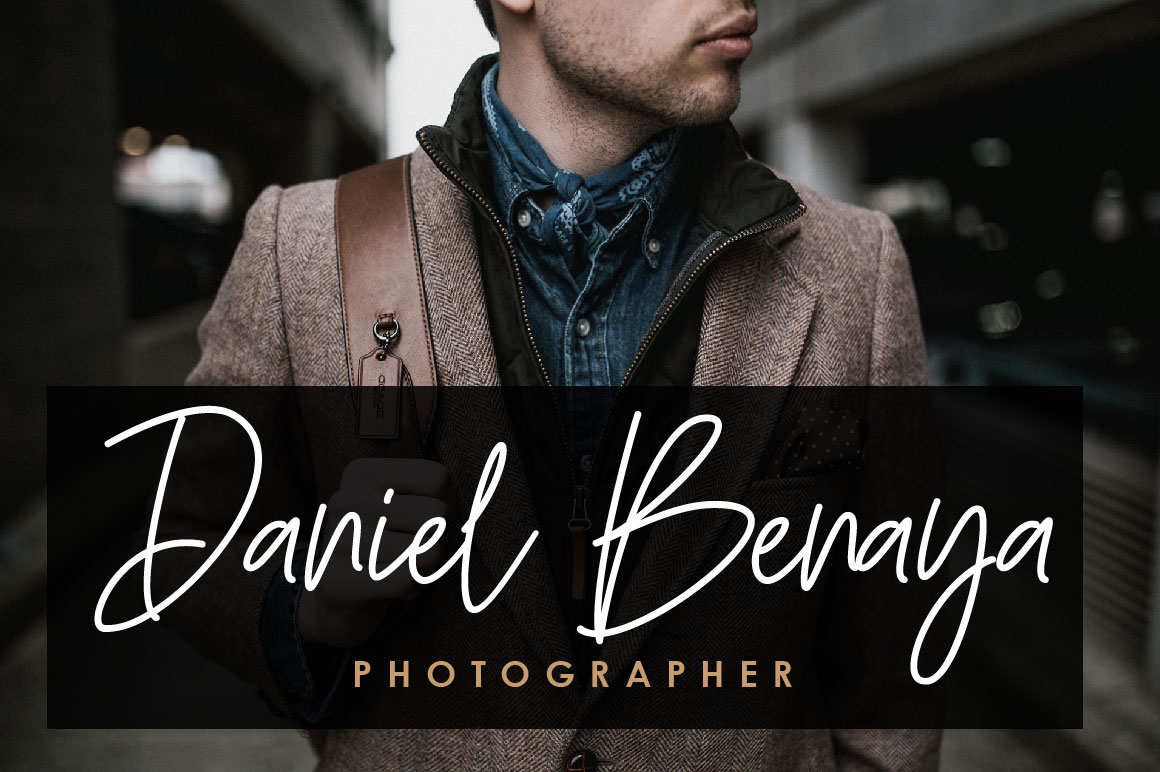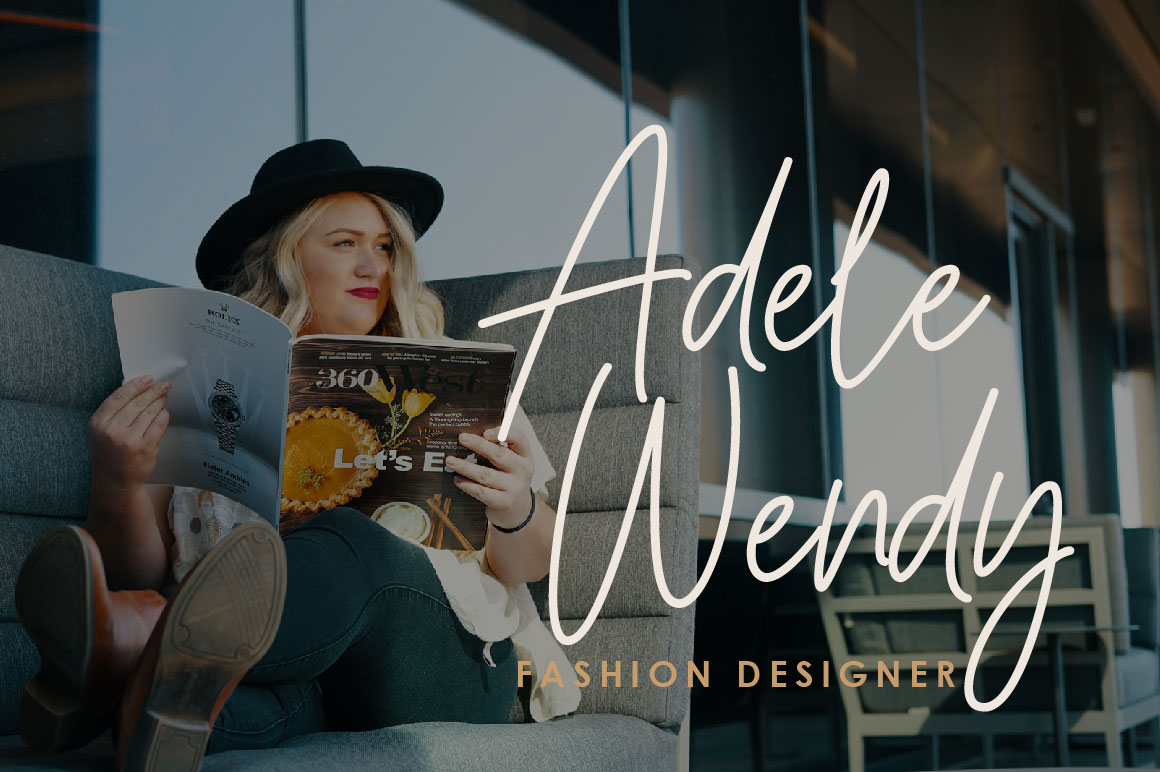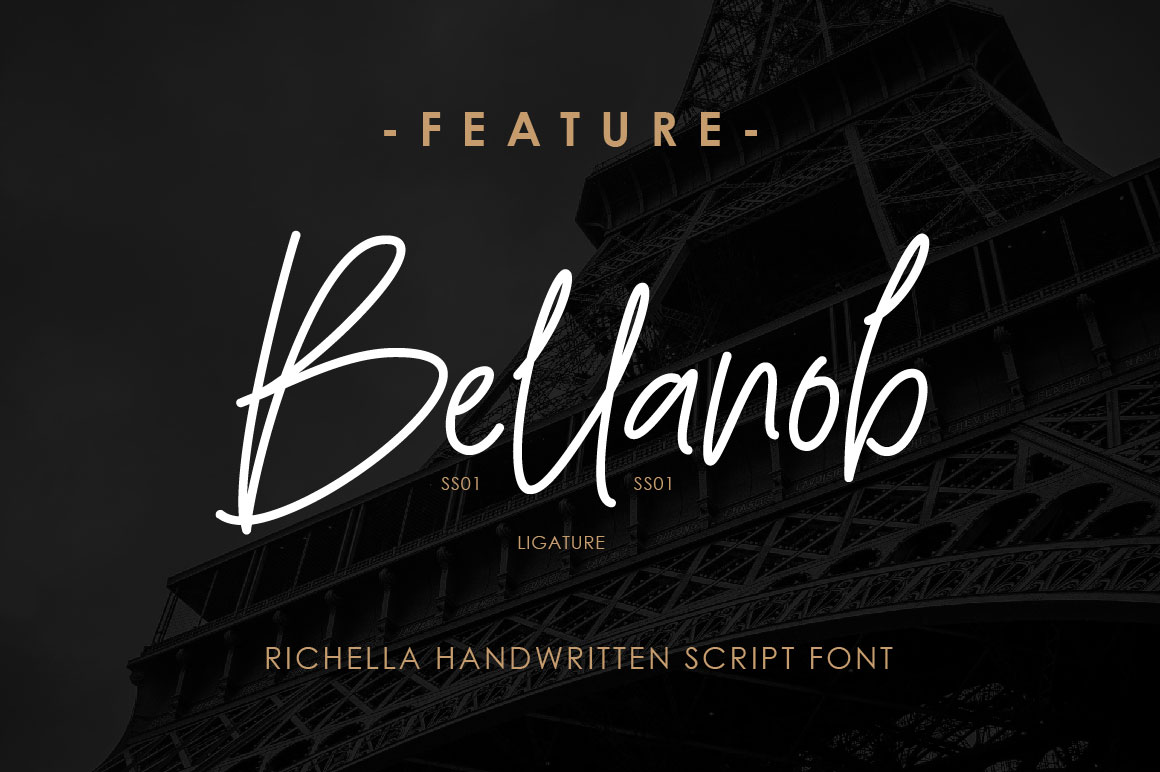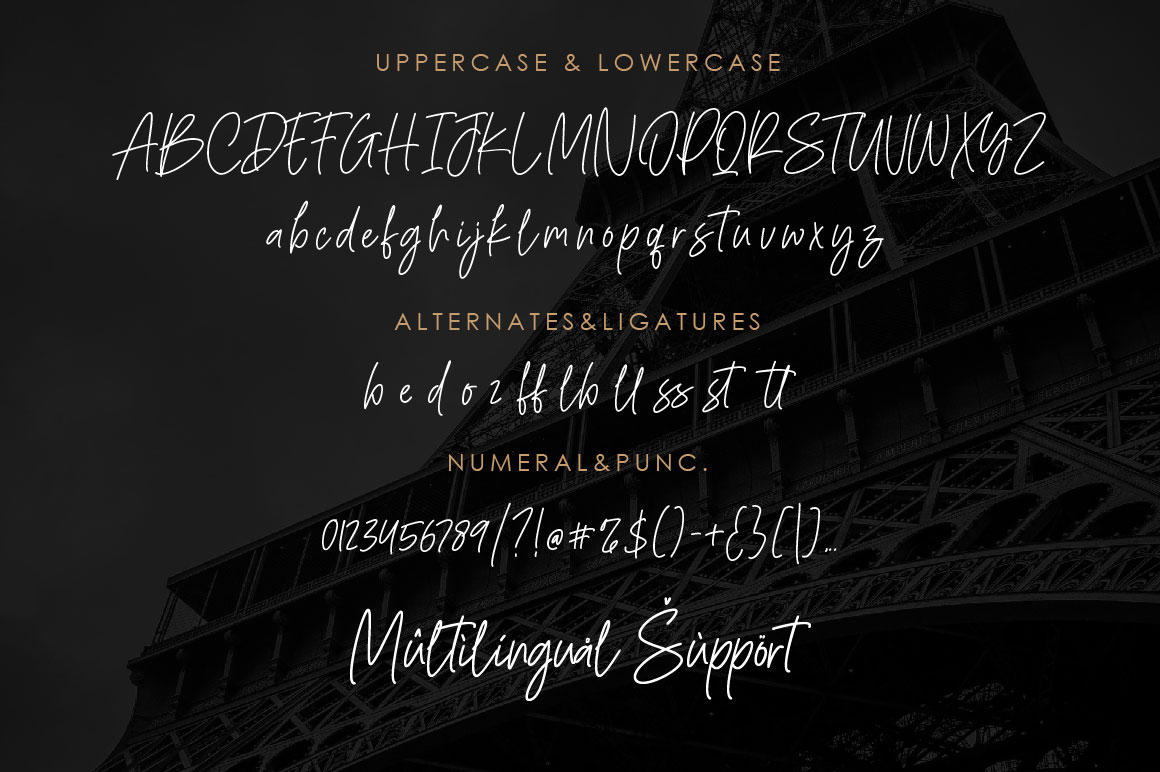
Richella Script Font
This is a tall and modern handwritten font. Clean and a little bit quirky, this font is the perfect fit for all of your logos, branding, social media, and crafty DIY projects.